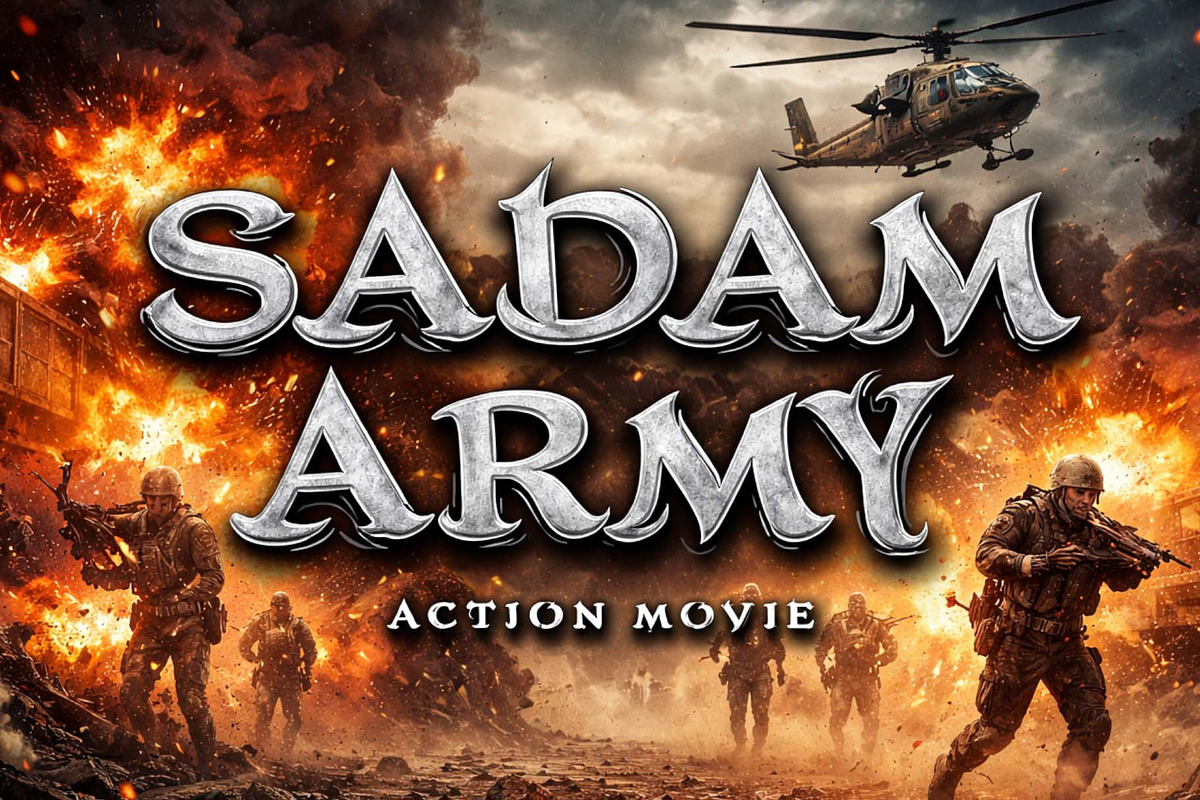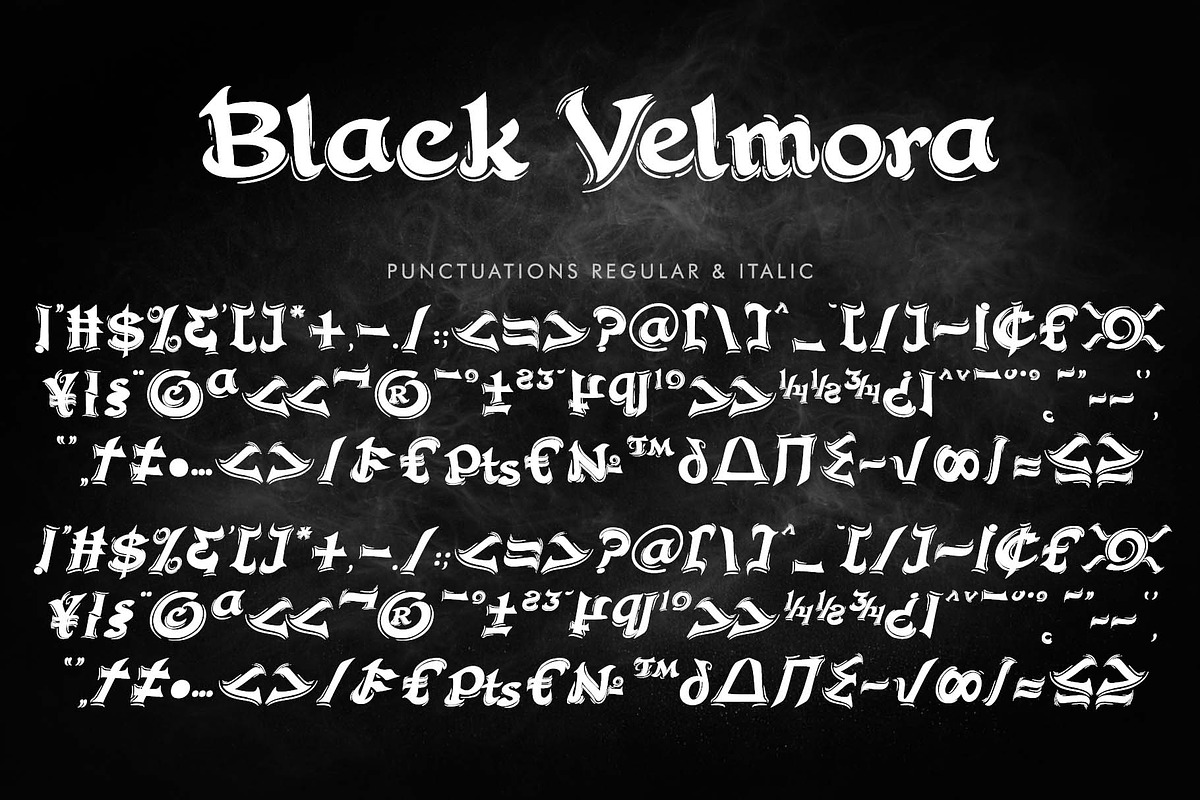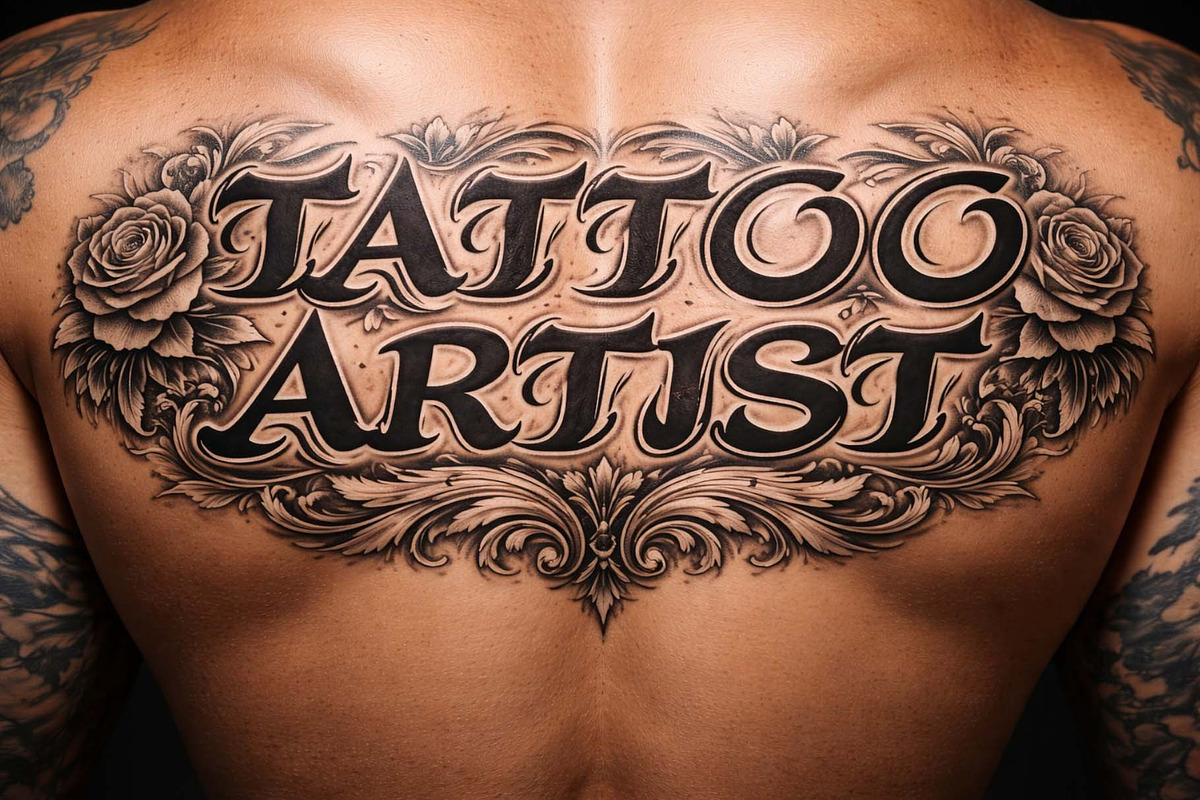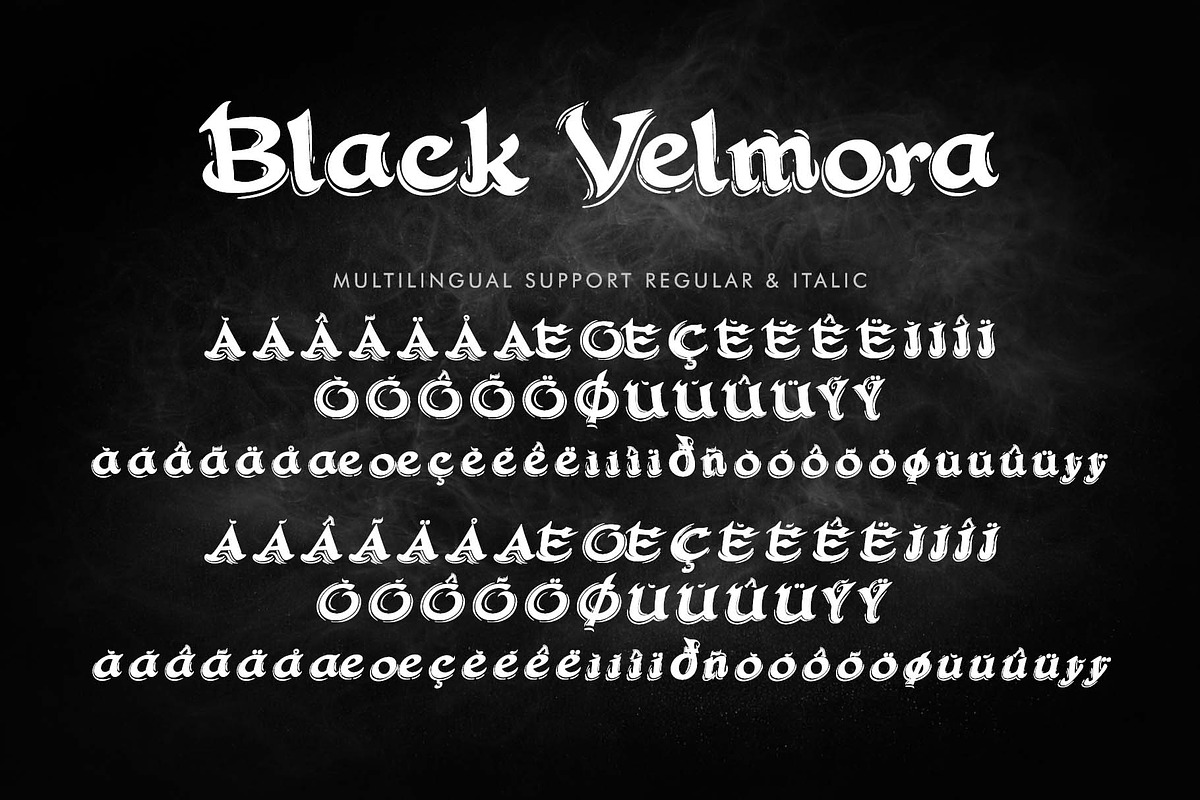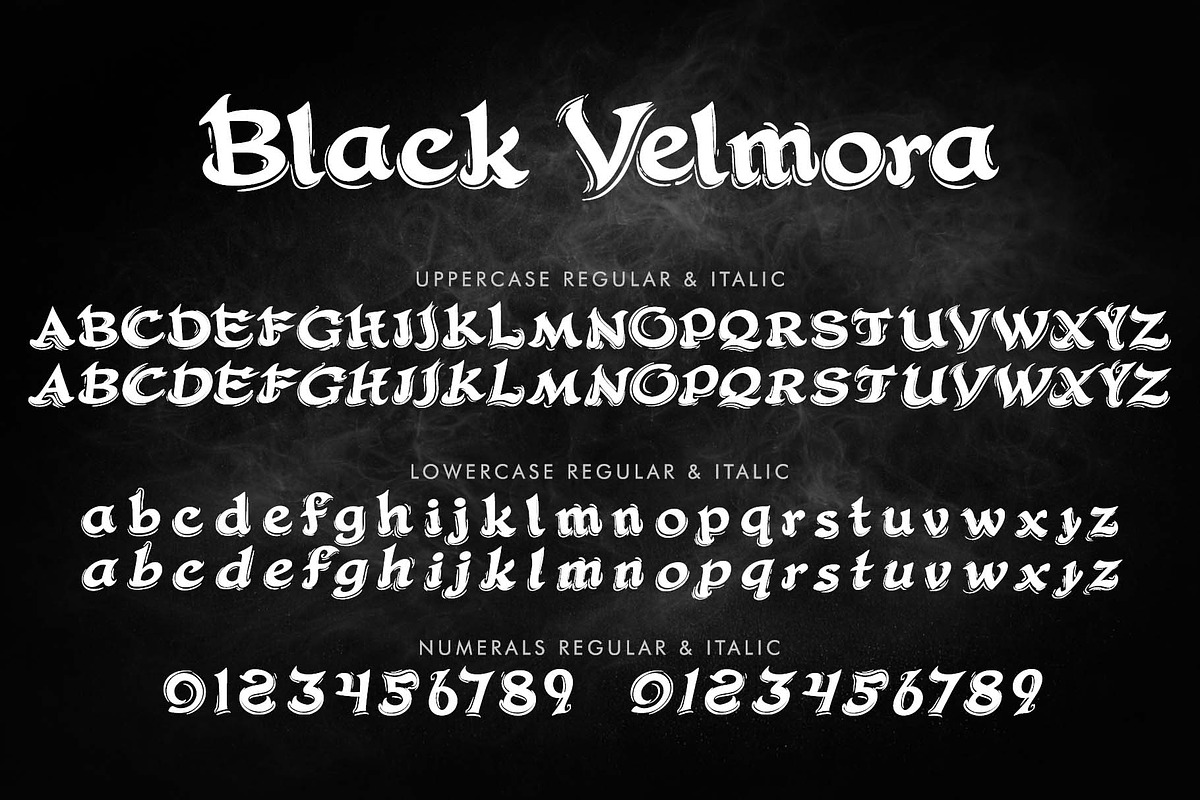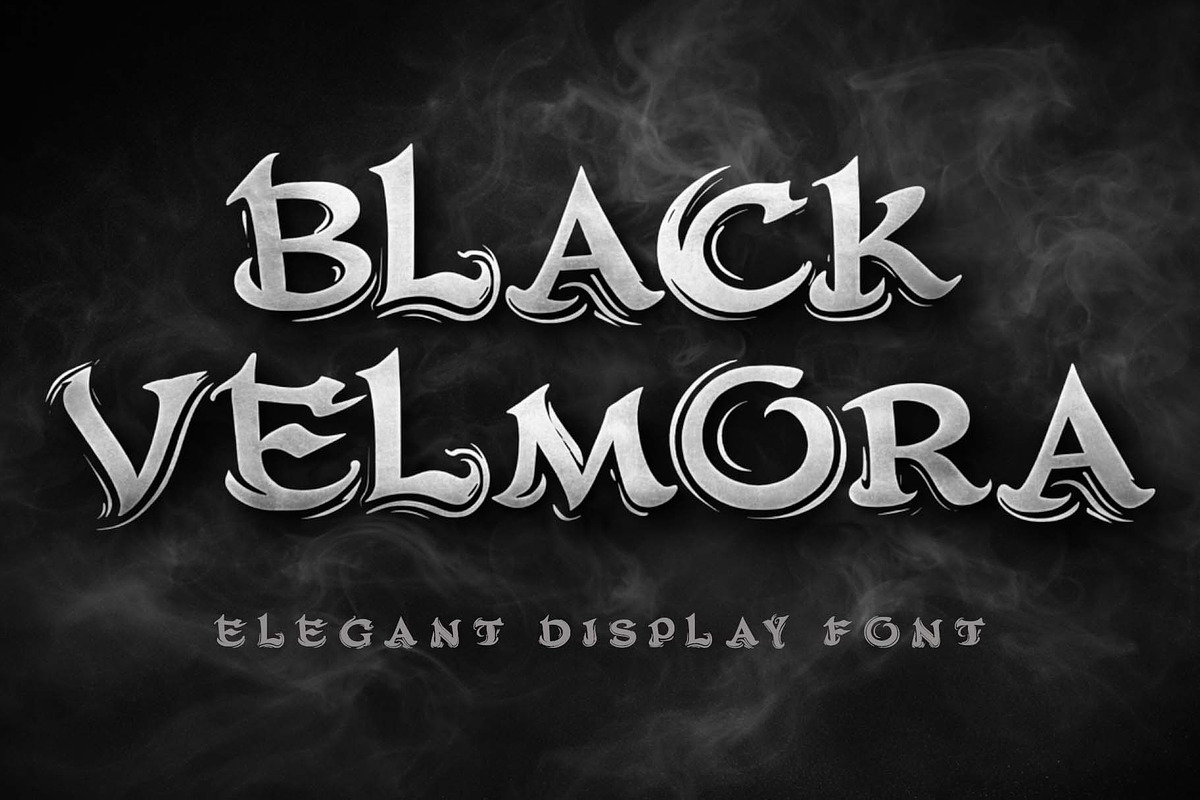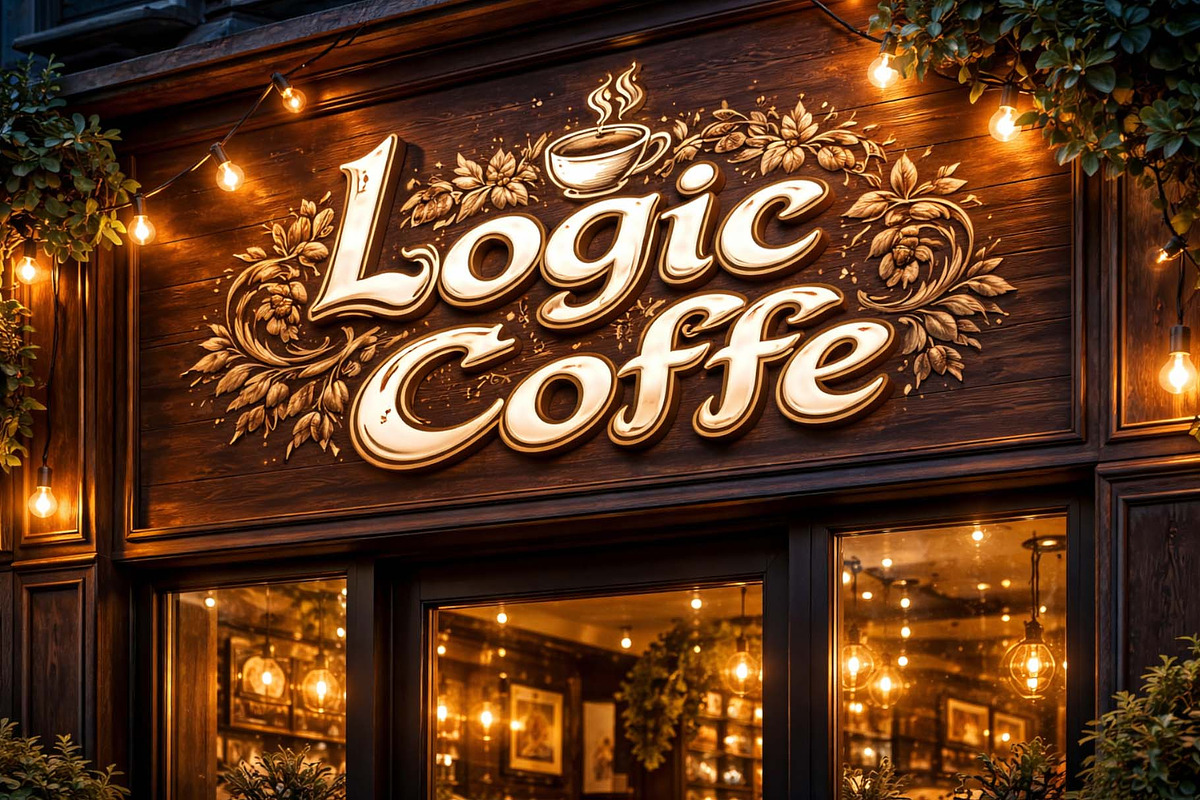
Black Vilmora
"Black Velmora" is a unique and elegant display font. It features uppercase and lowercase letters, numerals, punctuation, and multilingual support. It's perfect for banners, posters, logos, stickers, business branding, tattoos, movie titles, horror movies, action movies, Easter, spring, and summer, patriotic fonts, t-shirts, prints, vacations, and more.